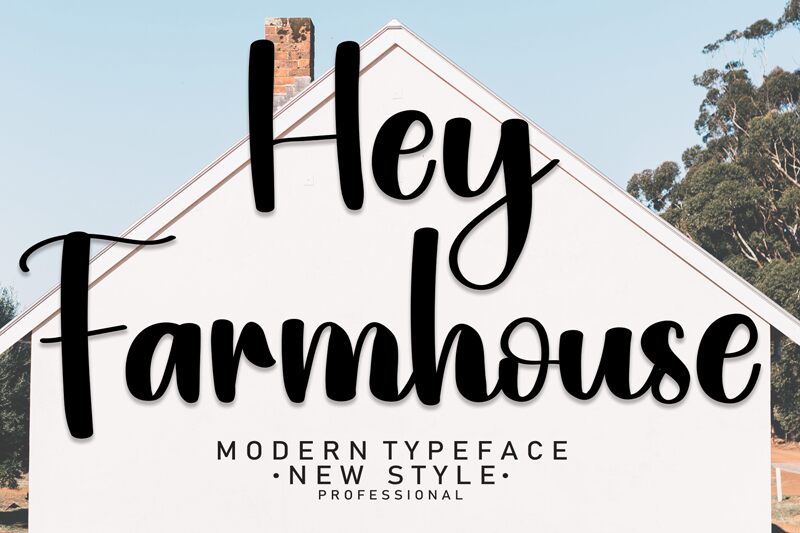
Hey Farmhouse
Hey Farmhouse, designed by Scratchones, embodies a charming handwritten aesthetic that captures the essence of rustic elegance with its semi-condensed width. Its fluid and organic contours convey warmth and personality, making it an ideal choice for projects that require a touch of homeliness and character.
The distinctively casual yet sophisticated style of Hey Farmhouse offers versatility-perfect for branding, home decor design, personalized stationery, or any creative endeavor that benefits from a handcrafted look.
Engage your audience with this font's inviting appeal, which seamlessly blends the nostalgia of the countryside with contemporary design sensibilities.